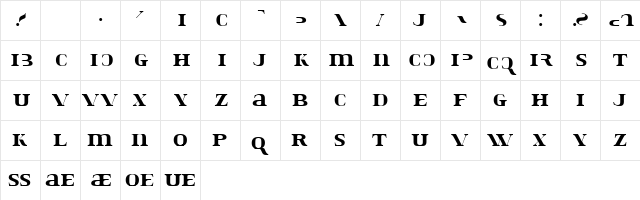
Konstata Stencil
| Style | Stencil |
| Foundry | David Waschbuesch |
| Designer | David Waschbuesch |
Design Context for Konstata Typeface
Konstata has the rough pragmatism of spray-painted stencil signage, adding a raw, street-level authenticity to designs.
Ideal for industrial branding, streetwear, military-adjacent aesthetics, and urban signage projects.
Pro Tip: Pair Konstata with raw, utilitarian design elements — exposed concrete textures, flat colour, and minimal ornamentation suit it well.